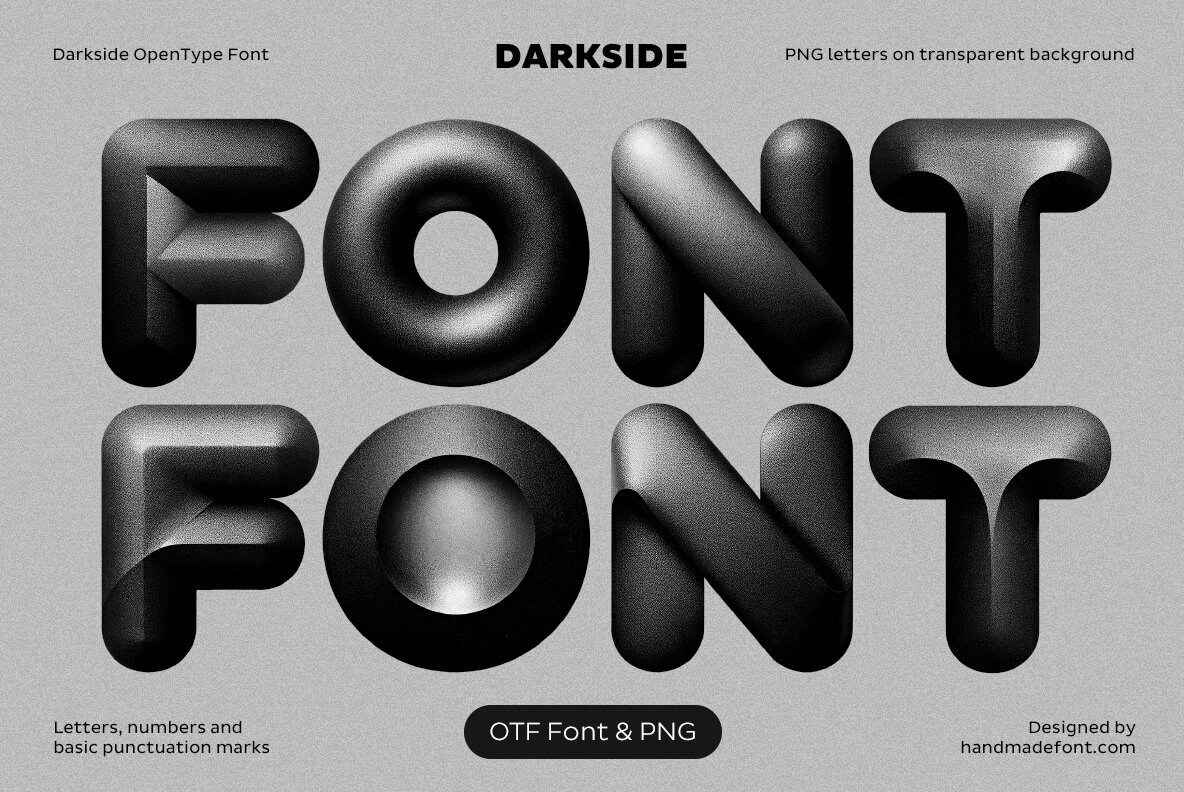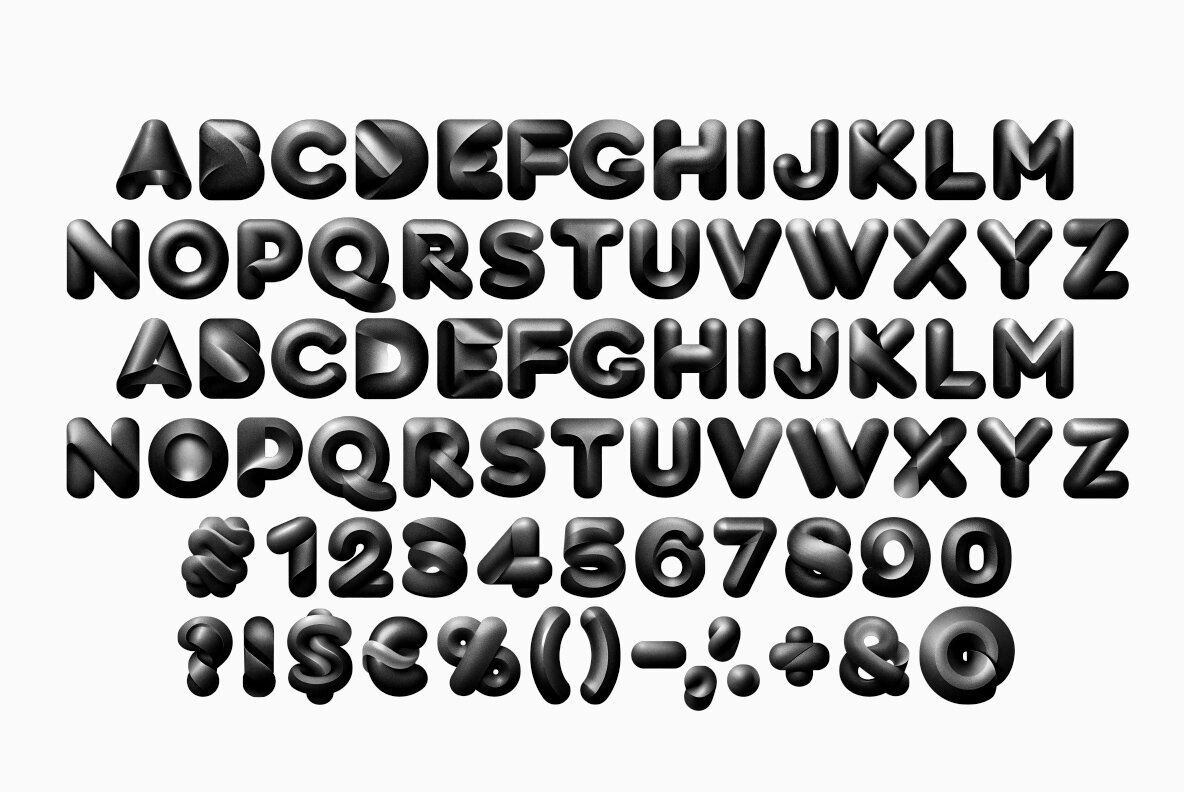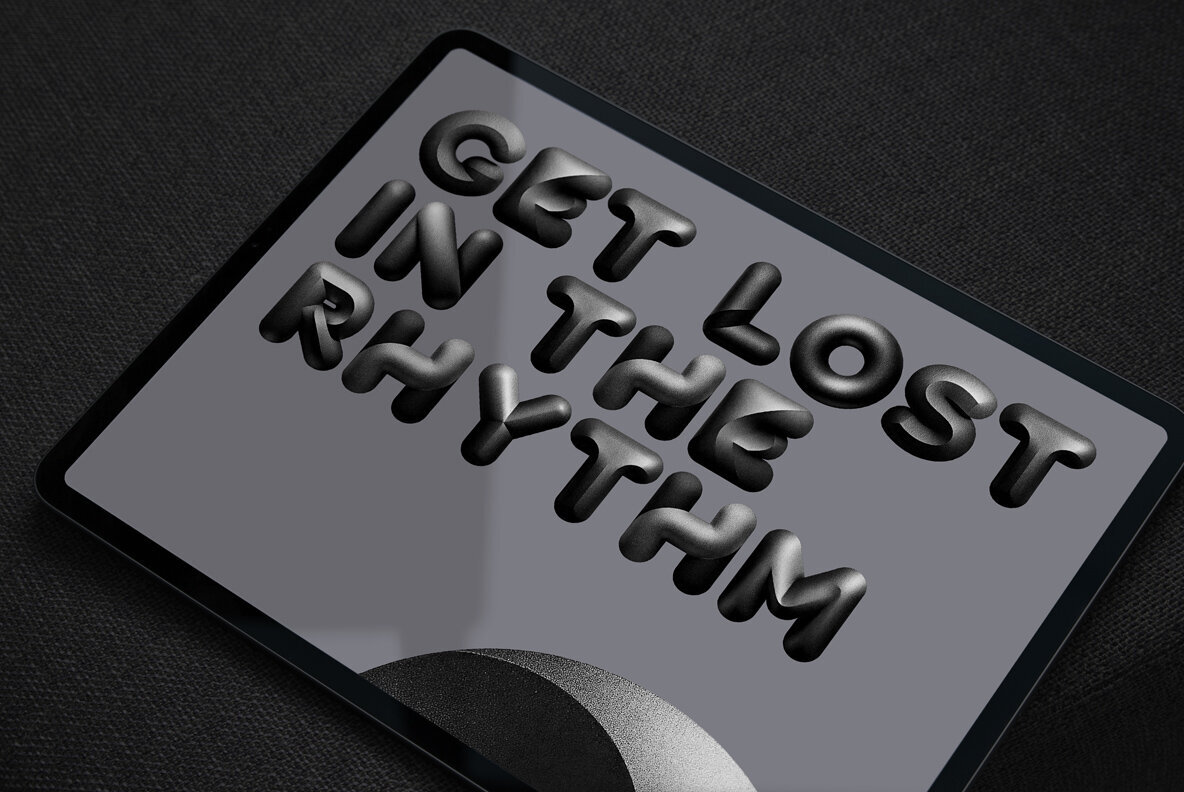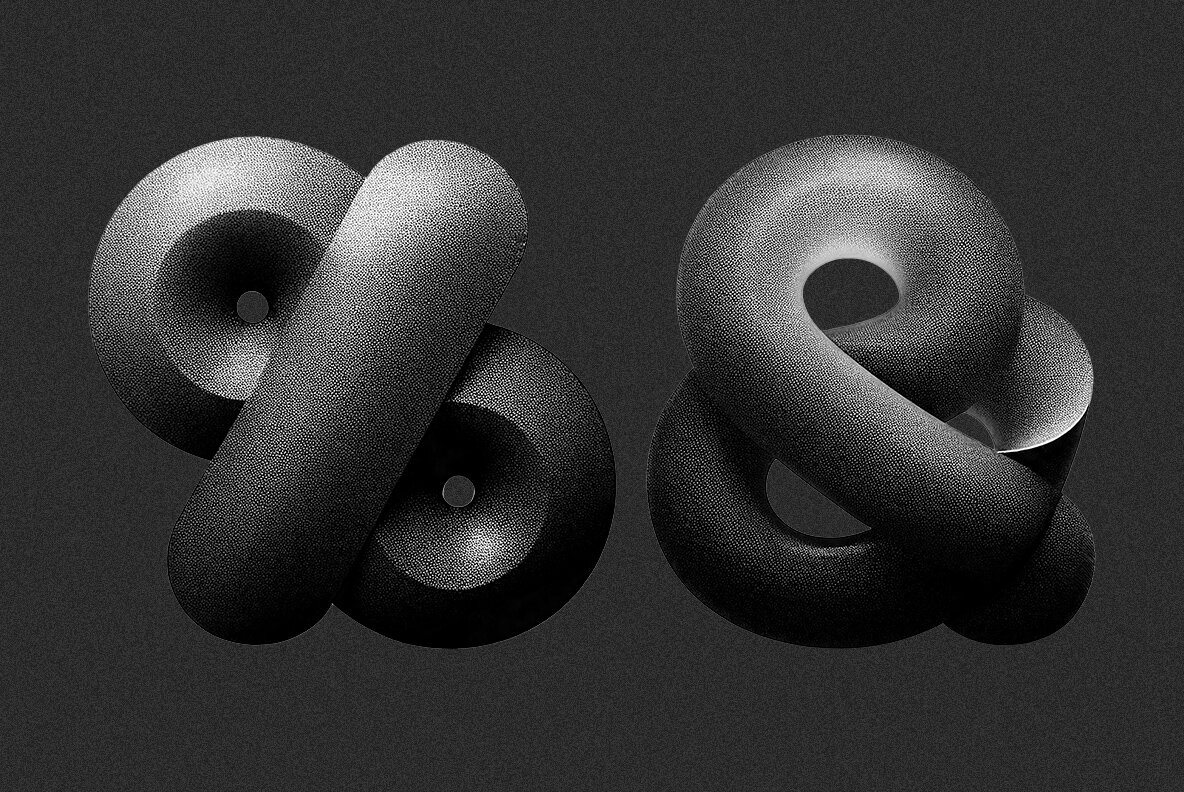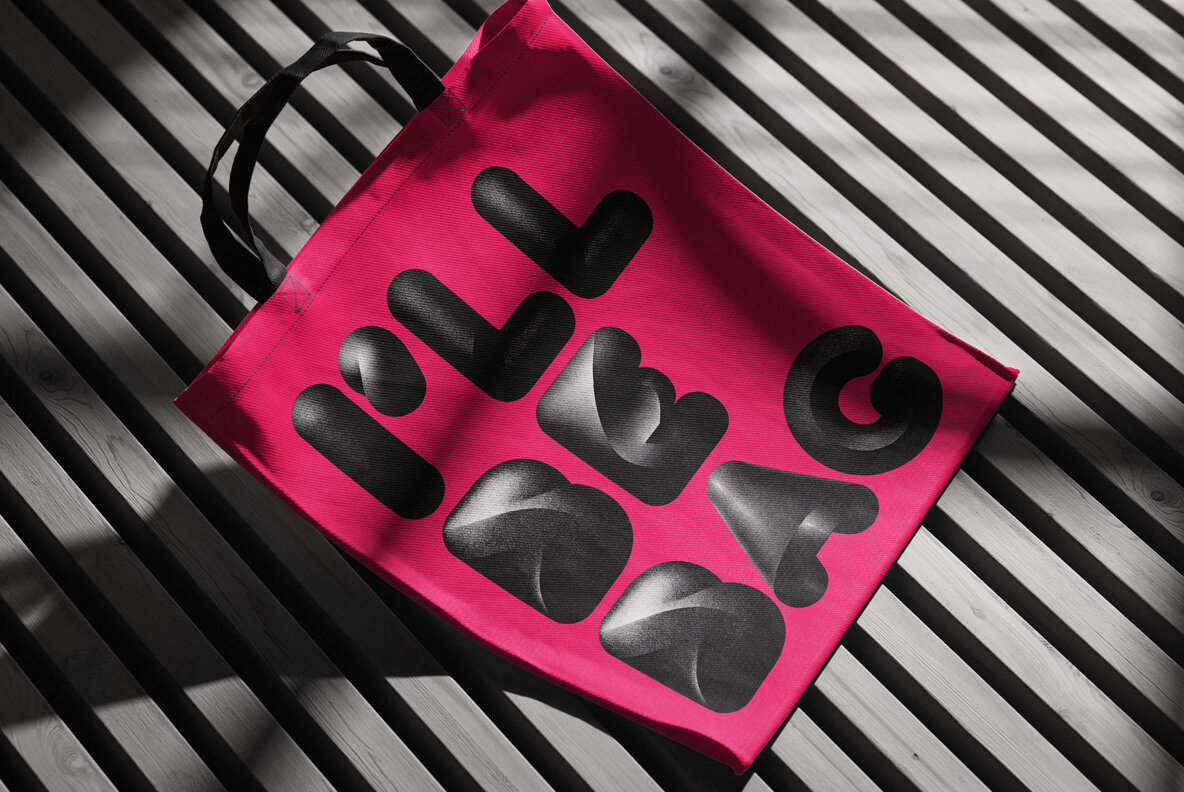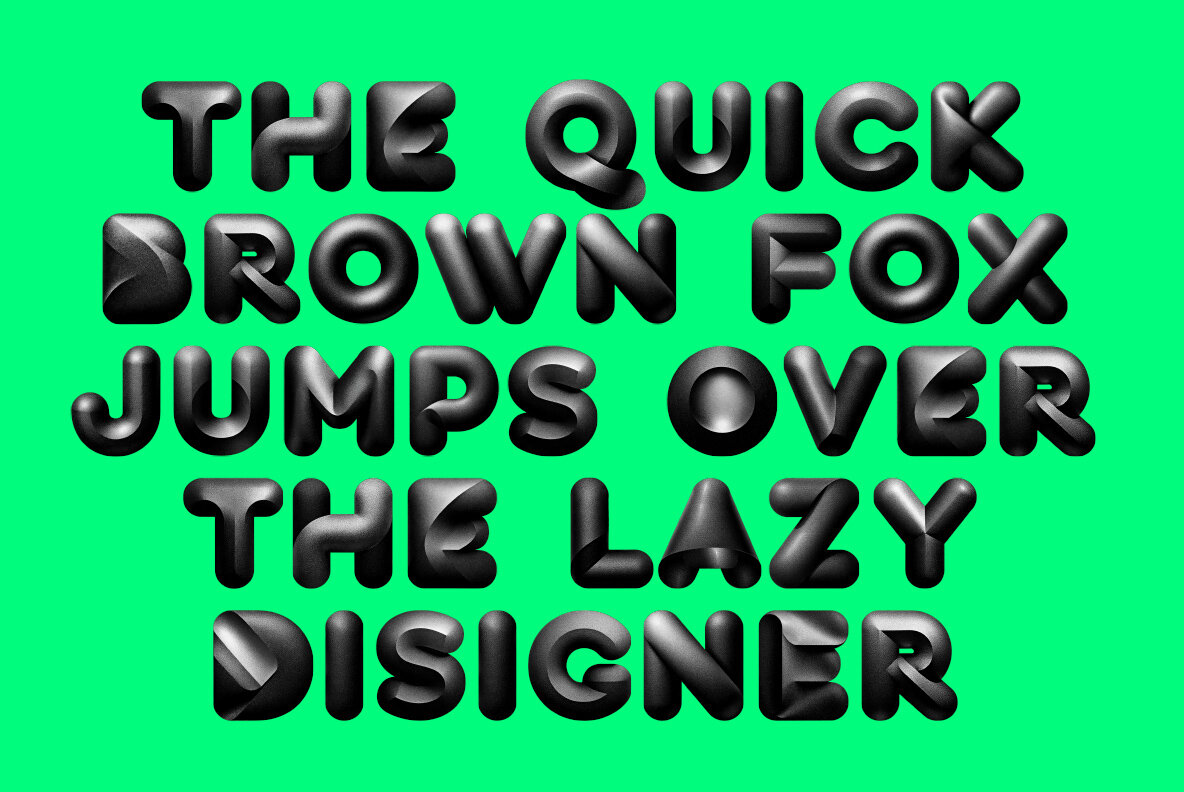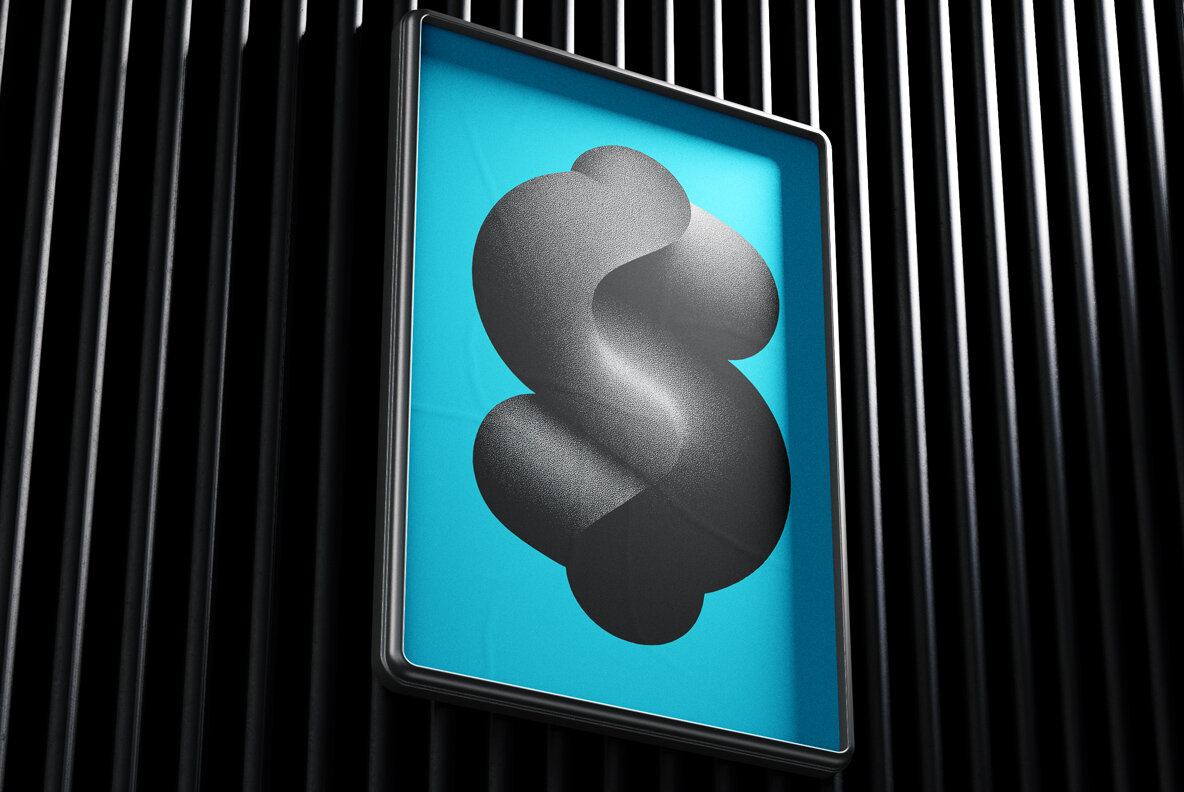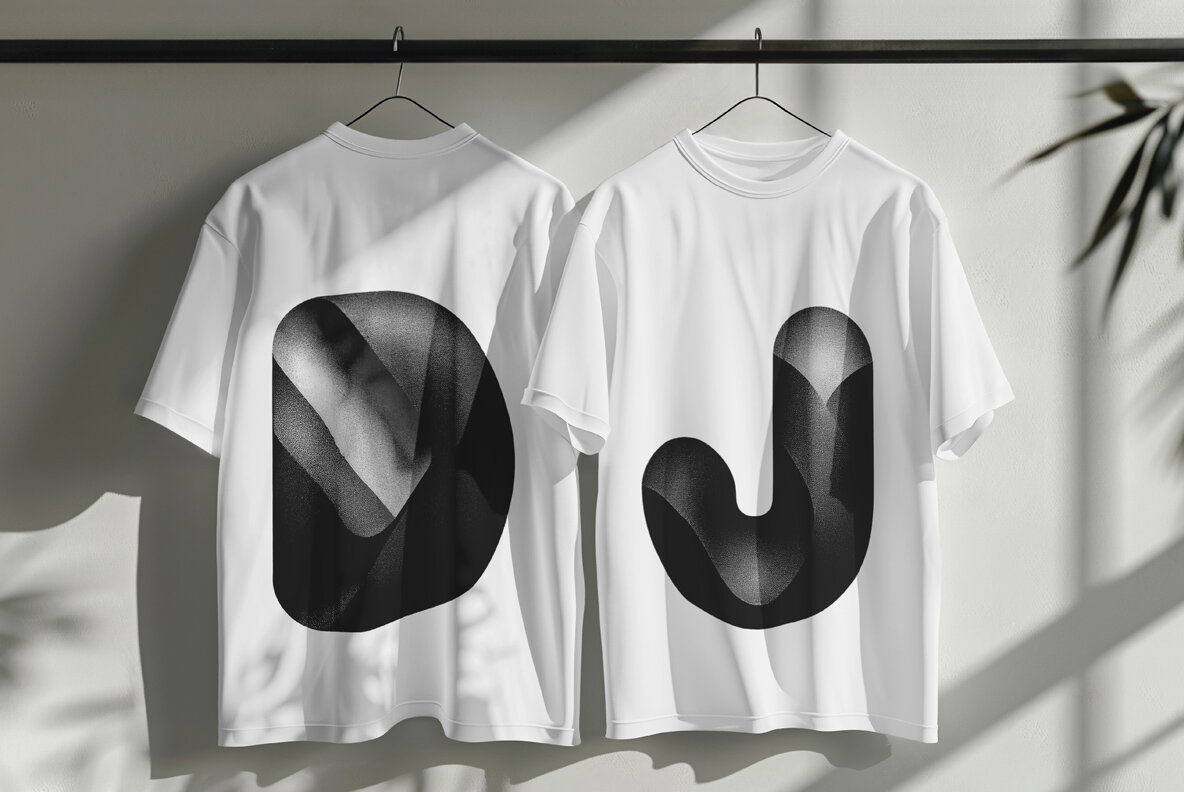
Darkside Font brings a bold, mysterious flair to your text with its inflated letters immersed in shadow and highlighted by a moody glow. This is no ordinary display type; it's typographic velvet coupled with the strength of futuristic steel. Ideal for sci-fi fashion zines or dystopian nightclub flyers, this font's smooth gradients, rounded edges, and hypnotic depth give an impression of subtle elevation, embodying a hint of enigma. For designers seeking drama with elegance and a touch of danger, Darkside Font offers a unique visual experience. While extended punctuation and language support are not included within the font itself, all needed punctuation is available as separate high-resolution PNG files. These assets allow for creative versatility in any graphic software, ensuring that each character aligns perfectly with your design intention.Darkside Font: Typographic Velvet Meets Futuristic Appeal